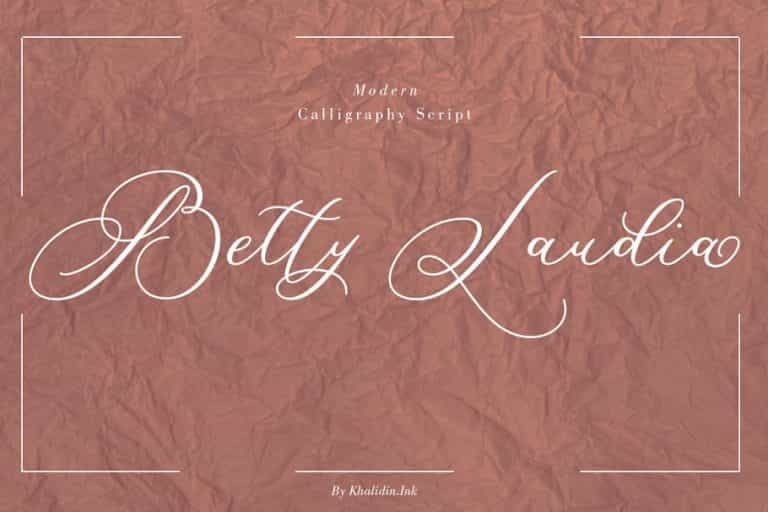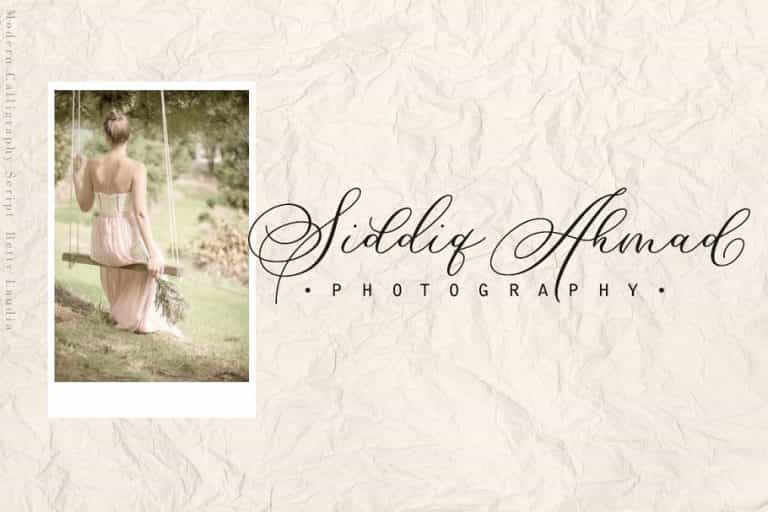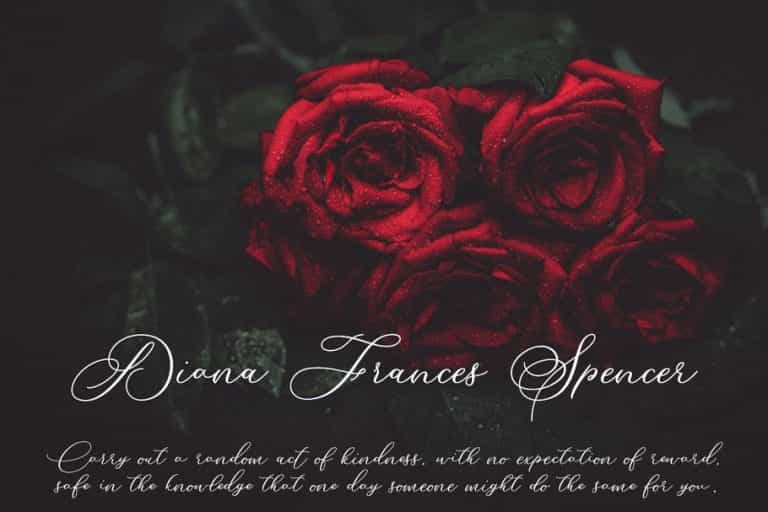
Introducing Betty Laudia Font. Betty Laudia Script Font is a contemporary Calligraphy script font. It also has a curved baseline and dancing characters which can be used to make your design look elegant or modern. It is the best for those who want to style up in a feminine, elegant and luxurious way. It is suitable for logos, wedding invitations, titles, signatures, t-shirts, letterheads, signboards , labels and posters and a lot more other things!